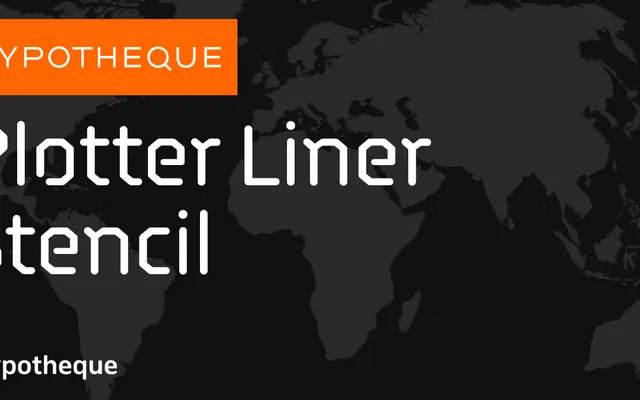
Plotter Liner Stencil
Typotheque
Plotter Liner Stencil specimen from Typotheque
A stencil and single-stroke type system from Typotheque, built around plotter-drawing conventions with layered display and mono variants.
Conceived around the logic of pen plotters and technical drawing, the family offers stencil, liner, mono and display subfamilies, each sharing four weights from Light to Bold. The Display subfamily extends to layered variants (Layer A through D), enabling colour separation and overprinting effects. Named cuts including Amsterdam, Bengaluru, Copenhagen and Damascus suggest regional or stylistic flavour within the system.
The family is built around stencil and liner (single-stroke) construction, with subfamilies explicitly labelled Stencil, Liner, Mono and Display, placing it firmly in the display/stencil category rather than conventional text type.